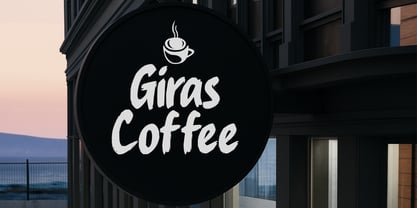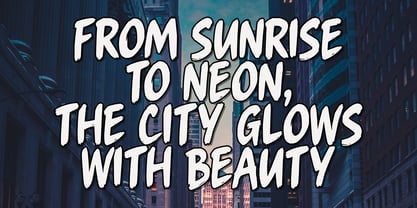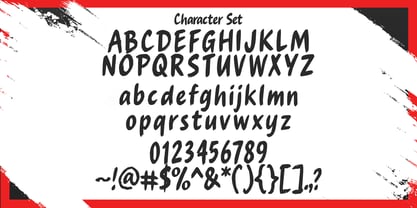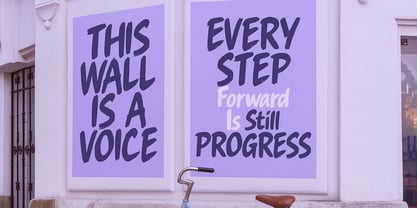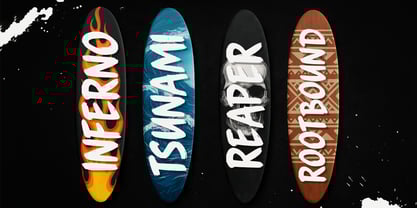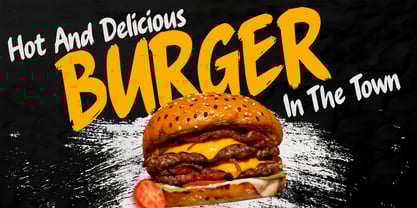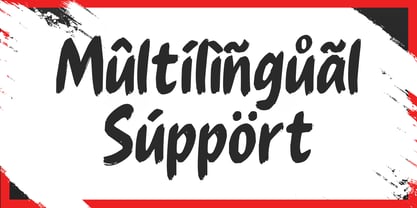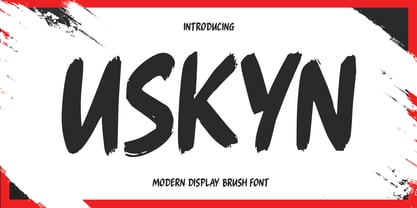
Uskyn
Introducing Uskyn – A Modern Brush Display Font
Uskyn blends bold curves with a fresh urban spirit, delivering a stylish brush script that brings striking energy to your visual designs. Whether you’re working on logo concepts, branding assets, packaging, handwritten quotes, or social media content, Uskyn ensures a modern, eye-catching finish.
Key Features:
• Uppercase and Lowercase
• Number and Punctuation
• Multilingual support